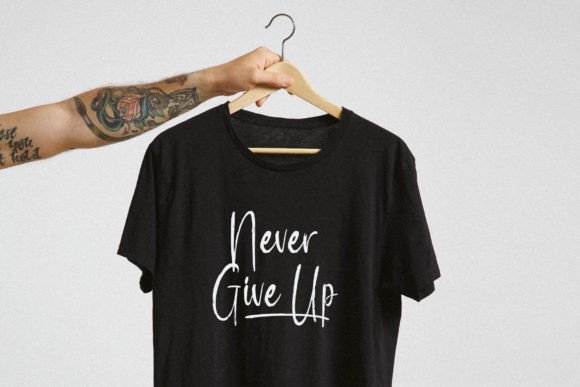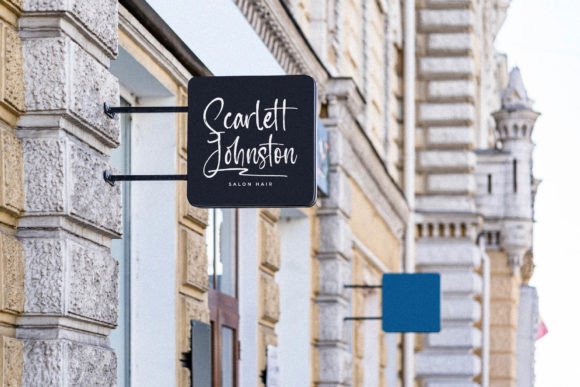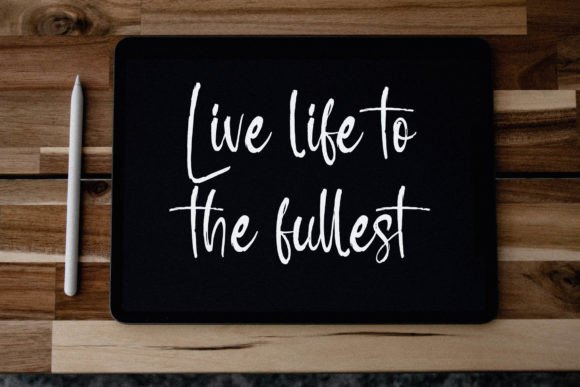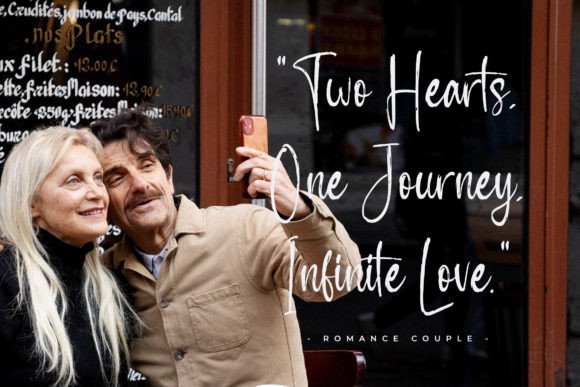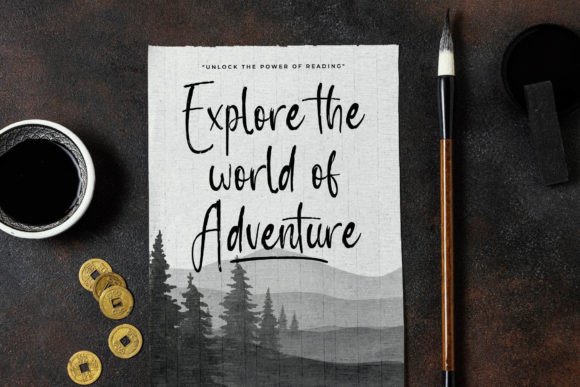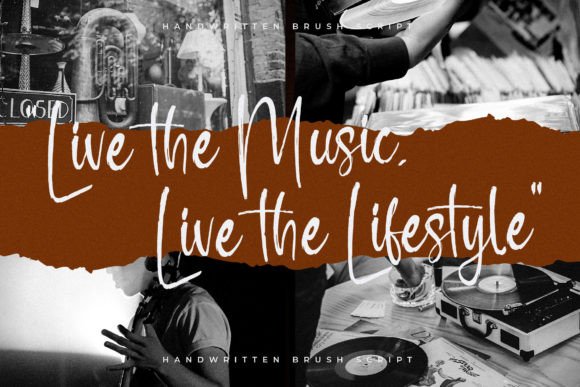
Introduction to Molinattess Font
Molinattess is a brush handwritten font suitable for any project such as logos, branding projects, homeware designs, product packaging, mugs, quotes, posters, shopping bags, T-shirts, book covers, name cards, invitation cards, greeting cards, labels, photography, watermark, special events, and all your other lovely projects that need a beautiful script taste.
Key Features of Molinattess Font
Why Choose Molinattess Font?
Molinattess Font offers exceptional quality and versatility, making it a valuable addition to your design toolkit. Whether you’re creating for personal projects or commercial use, Molinattess Font delivers professional results.